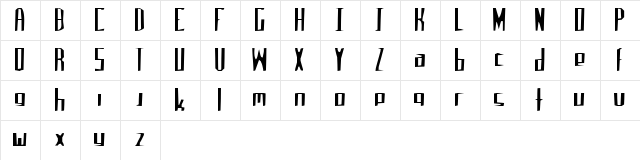
Mandible Mama Regular
Design Context for Mandible Mama Typeface
Mandible Mama is a composed and adaptable typeface that performs quietly and consistently across a wide range of design contexts.